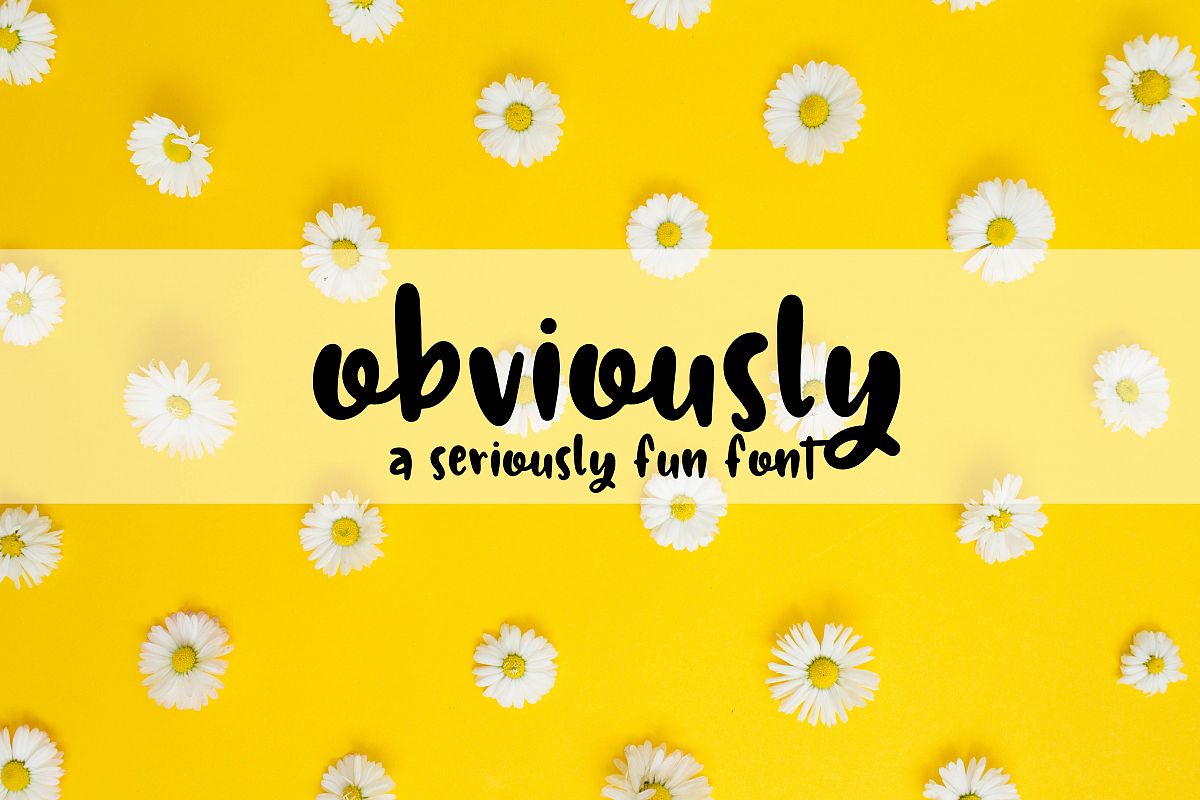
Obviously - A Seriously Fun Font
Obviously
Obviously is what it says it is : An obviously, seriously fun font! Great for titles, books, tee shirt designs, and so much more!
Alternate the "tl" for a super unique way to use the double T's in a sentence! the overlap is perfect!